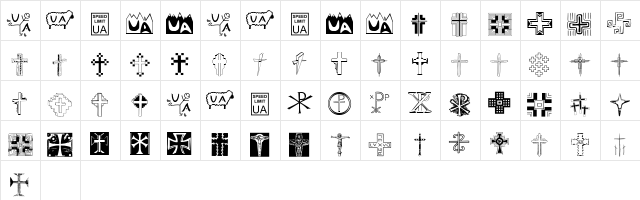
Christian Crosses II Regular
Christian Crosses II is a composed and adaptable typeface that performs quietly and consistently across a wide range of design contexts.